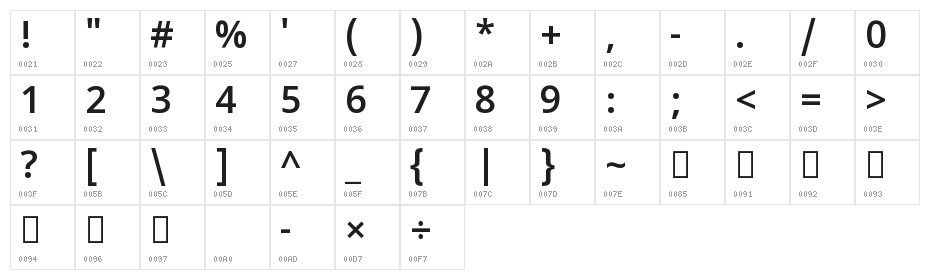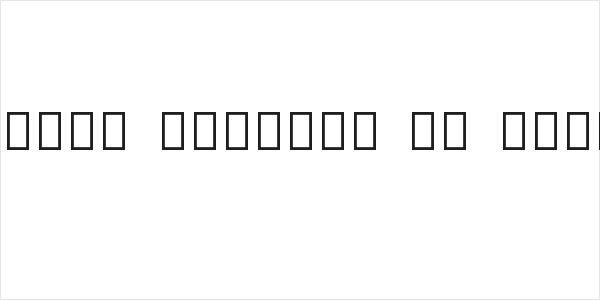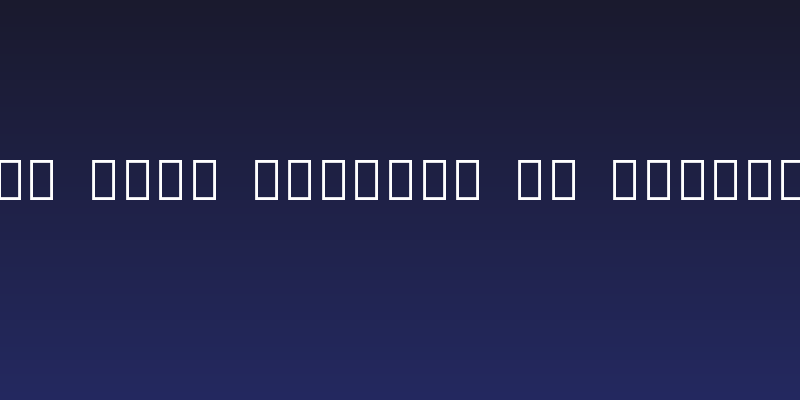
Noto Sans Sinhala UI SemiBold Font
Noto Sans Sinhala UI SemiBold Description
This font is designed with a clean and modern aesthetic, featuring smooth curves and a balanced structure. It maintains a uniform stroke width, which contributes to its legibility and clarity. The characters are well-proportioned, with a slightly condensed appearance that allows for efficient use of space. The numerals and special characters are crafted to match the overall style, ensuring consistency across all elements. This font is versatile, suitable for both digital and print media, and can be used in various design contexts.
| Proposed Projects | Ideal for user interfaces, digital content, branding, and editorial design. |